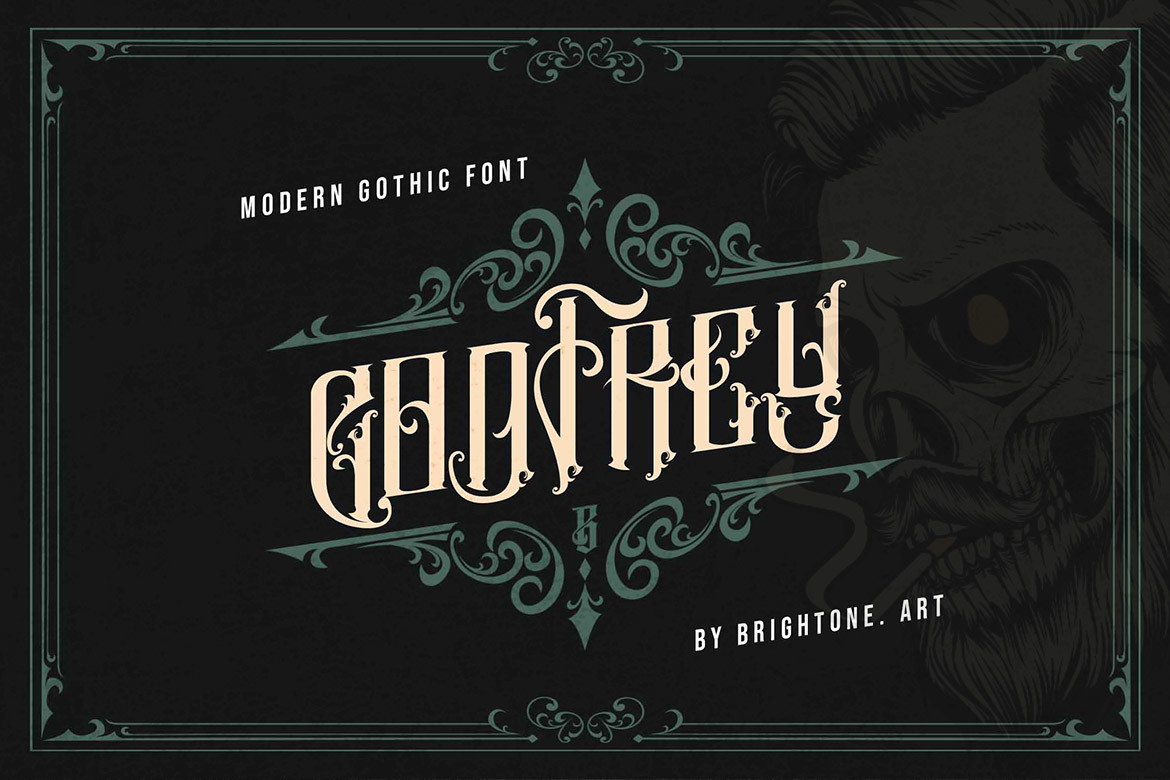
About Godfrey Font
Godfrey is a victorian styled and distinct blackletter font. It is PUA encoded which means you can access all of the glyphs and swashes with ease!